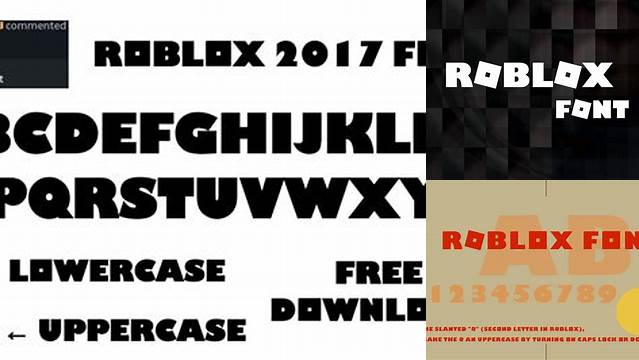
What is the Roblox Font?
First off, let's talk about what exactly the Roblox font is. When we talk about the "Roblox font," we're generally referring to the specific typeface used in the game's logo, user interface, and promotional materials. This font plays a significant role in the overall branding and visual identity of Roblox. It's what makes the game instantly recognizable and gives it that unique, playful feel. The Roblox font isn't just a random typeface; it's a carefully chosen design element that contributes to the game's appeal and memorability. Understanding the font's characteristics and how it's used within the Roblox ecosystem is the first step in replicating that style for your own projects. You might be wondering why a specific font matters so much. Well, imagine if your favorite movie used a generic, uninspired font for its title – it wouldn't have the same impact, right? Similarly, the Roblox font is integral to the game's brand recognition. When you see that particular typeface, you immediately associate it with Roblox. This is why using the correct font is essential if you're aiming to create something that feels truly authentic. The psychology behind font choices is fascinating. Different fonts evoke different emotions and associations. The Roblox font, with its bold and slightly rounded letters, conveys a sense of fun, playfulness, and approachability. These are all key characteristics of the Roblox brand, which aims to create a safe and engaging environment for players of all ages. Using the Roblox font in your own projects can help you tap into these positive associations and create a visual connection with the Roblox community. Whether you're designing a thumbnail for your Roblox gameplay videos, creating custom graphics for your Roblox group, or even developing your own Roblox-inspired game, the right font can make a huge difference. It's the little details like this that can elevate your work and make it stand out from the crowd. So, now that we understand the importance of the Roblox font, let's move on to how you can get your hands on it for free.
Identifying the Authentic Roblox Font
Alright, so you're on the hunt for the authentic Roblox font. But here's the thing: Roblox doesn't officially release their exact font for public use. This means there isn't a single, downloadable file labeled "Roblox Font." Instead, the font used in the Roblox logo and user interface is a modified or custom-designed typeface. However, don't worry! There are fonts that closely resemble the original Roblox font, and we'll guide you on how to find them. The key is to look for fonts that share similar characteristics: bold, slightly rounded, and with a playful feel. Think about the visual impression the Roblox font gives you. It's friendly, approachable, and a bit blocky, right? These are the qualities you should be searching for in alternative fonts. One popular approach is to identify fonts that are similar and then make slight modifications to them to get an even closer match. This might involve adjusting the letter spacing, rounding the corners, or even creating custom glyphs for specific characters. This method requires a bit more technical skill, but it allows you to create a truly unique and authentic-looking Roblox font for your projects. There are also online font identification tools that can be helpful in this process. These tools allow you to upload an image of the Roblox font (for example, from the Roblox logo) and then identify fonts that are visually similar. While these tools aren't always perfect, they can provide a good starting point for your search. Remember, the goal isn't necessarily to find an exact replica of the Roblox font. Instead, you want to find a font that captures the same spirit and feel. A font that's close enough will often work perfectly well for your needs, especially if you're using it for smaller design elements or text. When you're evaluating different font options, consider the context in which you'll be using the font. Will it be used for headlines, body text, or just a logo? Different fonts are better suited for different purposes. A font that looks great in a large headline might not be as legible in smaller text sizes. It's also worth thinking about the overall style of your project. Do you want to create something that's a perfect match for the Roblox aesthetic, or are you aiming for a more unique and personalized look? In some cases, using a slightly different font can actually help your project stand out while still maintaining a connection to the Roblox brand. So, keep your options open and don't be afraid to experiment! Now that you have a better understanding of how to identify fonts that resemble the Roblox font, let's explore some specific font options that you can download and use for free.
Free Fonts Similar to the Roblox Font
Okay, guys, let's get to the good stuff! You're probably wondering, "What are some specific fonts that look like the Roblox font, and where can I download them for free?" Well, you're in luck! There are several excellent options available that capture the playful and bold essence of the original. Remember, since the official Roblox font isn't publicly available, these are fonts that are similar in style. However, they're often close enough that they'll work perfectly for your Roblox-themed projects. One popular choice is Luckiest Guy. This font, designed by Fontscafe.com, is a bold, handwritten-style font with rounded edges. It has a friendly and approachable feel that's very similar to the Roblox font. Plus, it's available for free for personal use, making it a great option for your projects. Another fantastic option is Bangers. This is a bold, comic-style font that also features rounded edges and a playful character. It's another free font that's widely used for Roblox-related content. Bangers is especially well-suited for headlines and titles, as it's very eye-catching and attention-grabbing. When you're choosing a font, it's important to consider the specific project you're working on. For example, if you're creating a thumbnail for a Roblox gameplay video, you'll want a font that's easy to read at a glance and that stands out against the background image. Bangers is an excellent choice for this purpose. On the other hand, if you're creating a longer piece of text, such as a description for your Roblox group, you'll want a font that's more legible and comfortable to read. Luckiest Guy might be a better option in this case. Another great resource for finding free fonts is Google Fonts. This is a vast library of open-source fonts that are free to use for both personal and commercial projects. While there isn't a single font on Google Fonts that's a perfect match for the Roblox font, there are several that come close. Fonts like Baloo Bhai 2, Fredoka One, and Lilita One all have a similar bold, rounded style that you might find useful. When you're browsing Google Fonts, you can use the filters to narrow down your search based on font style, thickness, and other characteristics. This can help you quickly find fonts that are a good fit for your needs. It's also worth checking out websites like DaFont and FontSpace. These are popular font repositories that offer a wide variety of free fonts, including many that are similar to the Roblox font. However, it's important to be aware that not all fonts on these sites are free for commercial use. Always check the license information before using a font in a project that you plan to sell or monetize. So, to recap, some excellent free font options that resemble the Roblox font include Luckiest Guy, Bangers, Baloo Bhai 2, Fredoka One, and Lilita One. Be sure to explore these and other similar fonts to find the perfect match for your projects. Now that you have some fonts in mind, let's talk about how to download and install them on your computer.
Creative Uses for Your Roblox Font
Okay, guys, you've successfully downloaded and installed your Roblox font – awesome! Now it's time to unleash your creativity and start using it in your projects. The possibilities are truly endless, but let's brainstorm some ideas to get your creative juices flowing. One of the most common uses for a Roblox-style font is in creating graphics for your Roblox games or groups. If you have a Roblox group, a catchy logo and eye-catching banners are essential for attracting new members. Using a font that closely resembles the Roblox font can instantly give your group a professional and authentic look. Similarly, if you're developing a Roblox game, the right font can make a huge difference in the game's overall aesthetic. Consider using the Roblox font for your game's title, in-game menus, and user interface elements. This will help create a cohesive and immersive experience for your players. Another fantastic use for the Roblox font is in creating thumbnails for your Roblox gameplay videos. On platforms like YouTube, a visually appealing thumbnail is crucial for getting viewers to click on your videos. Using a bold and recognizable font like the Roblox font can help your thumbnails stand out from the crowd. Experiment with different font sizes, colors, and effects to create thumbnails that are both eye-catching and informative. You can also use the Roblox font to create custom graphics for your social media profiles. Whether it's a profile picture, a banner, or a custom post, using a consistent font can help you establish a strong brand identity. This is especially important if you're a content creator or streamer who wants to build a loyal following. Think about how you can incorporate the Roblox font into your other design projects as well. Maybe you want to create a custom birthday card for a Roblox-loving friend, or design a poster for a Roblox-themed party. The Roblox font can add a fun and playful touch to any project. Don't be afraid to experiment with different font combinations and design styles. While the Roblox font is great for headlines and titles, it might not be the best choice for long blocks of text. In these cases, you might want to pair it with a more legible font for the body text. There are many online resources that can help you choose complementary font pairings. Consider adding special effects to your text to make it even more visually appealing. Things like outlines, shadows, and gradients can add depth and dimension to your text. You can also try using different text styles, such as bold, italic, or underlined, to emphasize certain words or phrases. Remember, the key is to have fun and experiment! The more you play around with the Roblox font, the more creative ways you'll find to use it in your projects. Now that you have a ton of ideas for using your Roblox font, let's wrap up with some final thoughts and recommendations.
Conclusion: Level Up Your Designs with the Roblox Font
So, there you have it, guys! You've learned all about the Roblox font, how to download the Roblox font for free (or, rather, similar fonts), and how to use it creatively in your projects. We've explored the importance of fonts in branding and visual identity, identified key characteristics of the Roblox font, and shared some excellent font options that you can use to capture the essence of the game. Remember, while the official Roblox font isn't publicly available, there are plenty of fantastic alternatives that you can use to achieve a similar look and feel. Fonts like Luckiest Guy, Bangers, and the various options available on Google Fonts are all great choices. The key is to find a font that's bold, playful, and slightly rounded, and that resonates with the overall aesthetic of Roblox. Downloading and installing fonts is a straightforward process, and once you've got your Roblox font set up, the possibilities are endless. You can use it to create logos, banners, thumbnails, social media graphics, and much more. Whether you're a game developer, a content creator, or simply a Roblox enthusiast, the right font can make a huge difference in the visual impact of your projects. Don't be afraid to experiment with different font combinations, styles, and effects. The more you play around with the Roblox font, the more creative ways you'll find to use it. Consider how the Roblox font fits into the overall design of your project. Is it the primary font, or is it being used as a secondary font to complement a different typeface? Think about the message you're trying to convey and choose a font that supports that message. Also, remember to always check the font license before using it in a commercial project. While many fonts are free for personal use, some may have restrictions on how they can be used in projects that you plan to sell or monetize. Finally, have fun with it! Designing with fonts is a creative process, and there's no right or wrong answer. The most important thing is to create something that you're proud of. So, go ahead and download the Roblox font for free, and start leveling up your designs today! With the right font, you can add that authentic Roblox touch to all your projects and create something truly special.